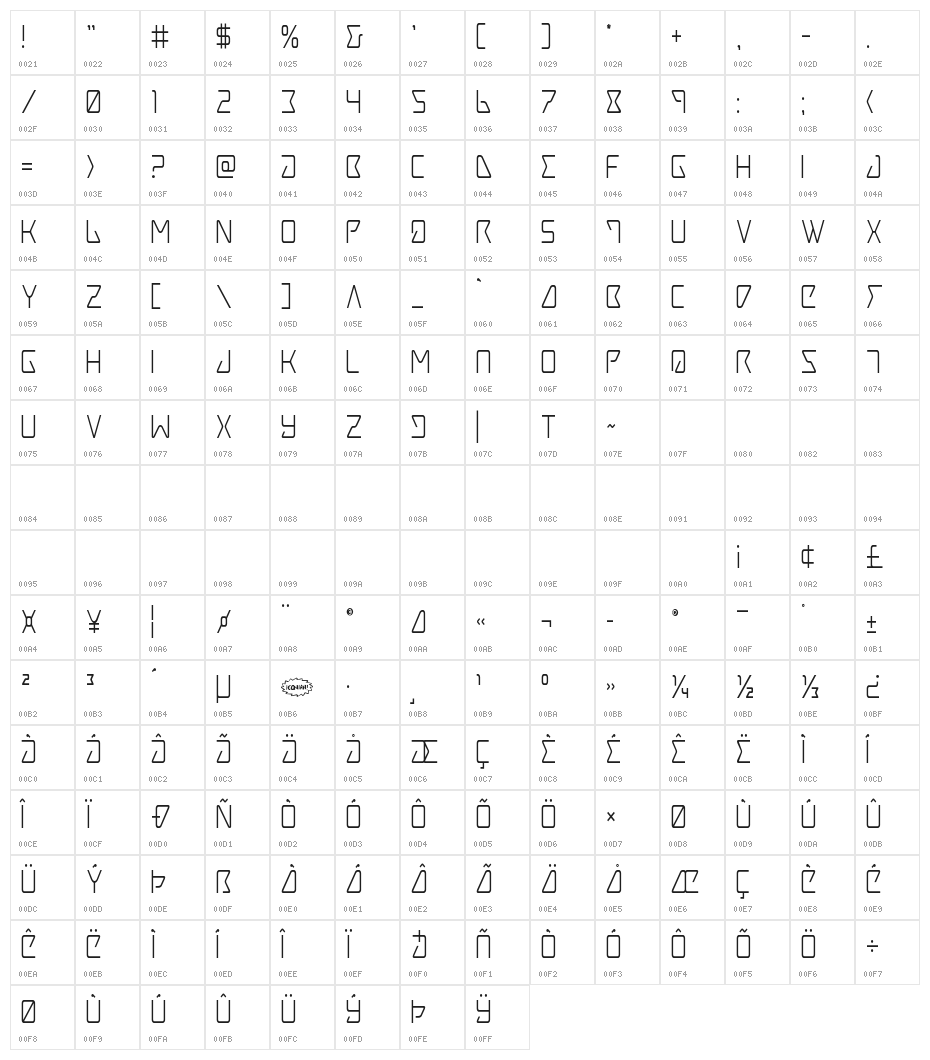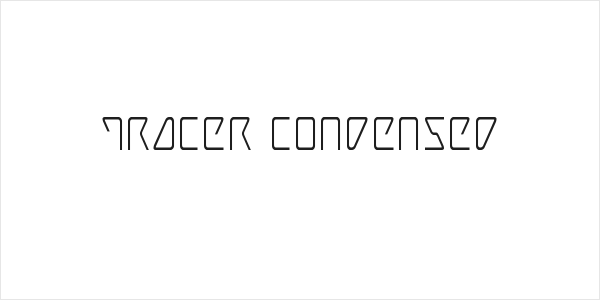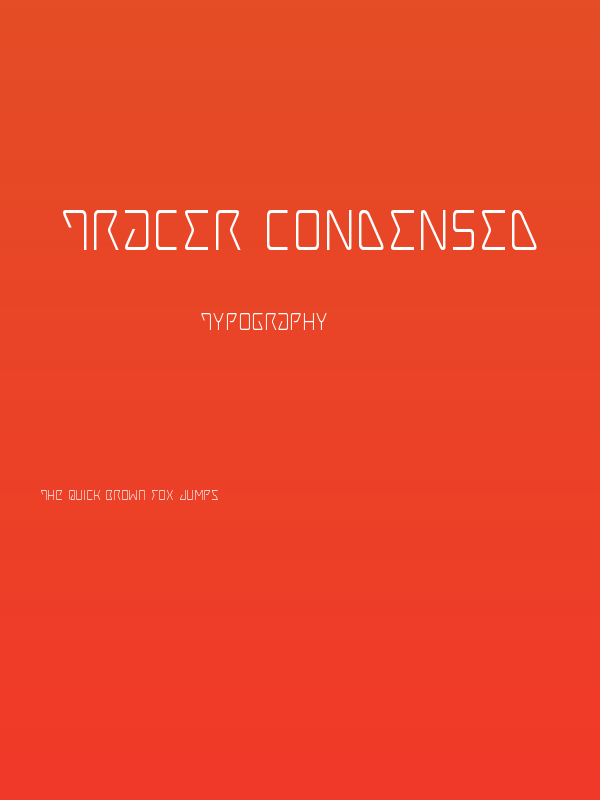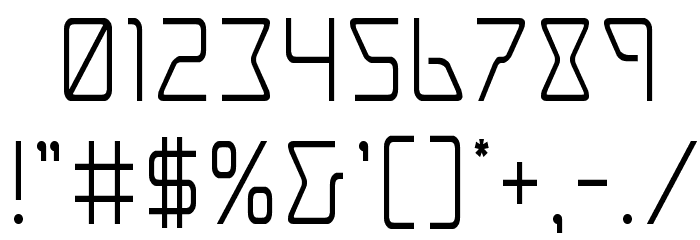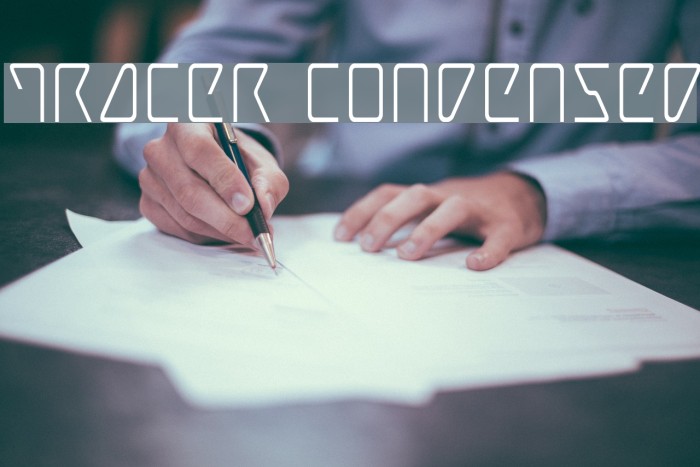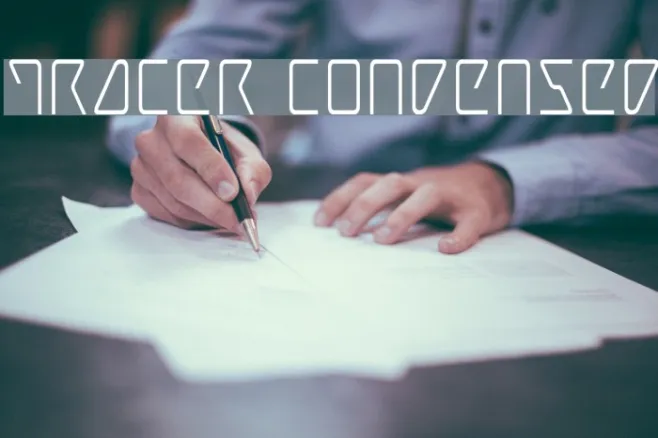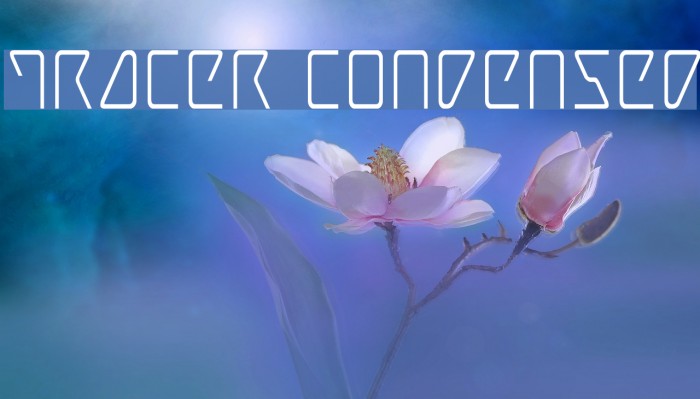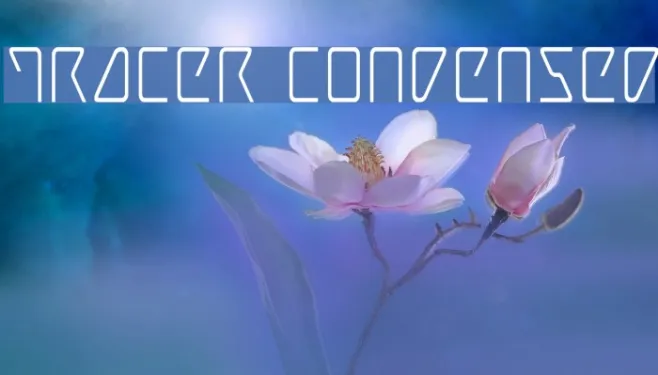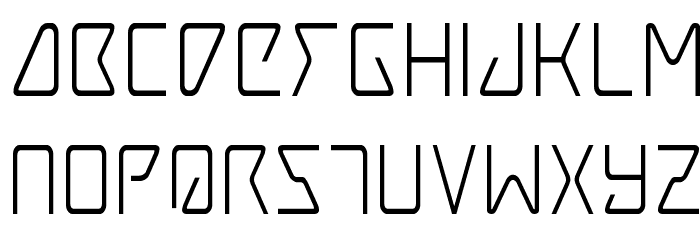
Tracer Condensed Font
Tracer Condensed Description
This font features a futuristic and geometric design, characterized by its angular and minimalist letterforms. The characters are constructed with straight lines and sharp angles, giving it a modern and tech-inspired appearance. The uppercase and lowercase letters share a consistent style, with a uniform height and width that enhances its condensed nature. The numerals and special characters follow the same design principles, ensuring a cohesive look across all glyphs. The overall aesthetic is sleek and efficient, making it suitable for projects that require a contemporary and innovative touch.
| Proposed Projects | Ideal for tech branding, sci-fi posters, digital interfaces, and modern logos. |